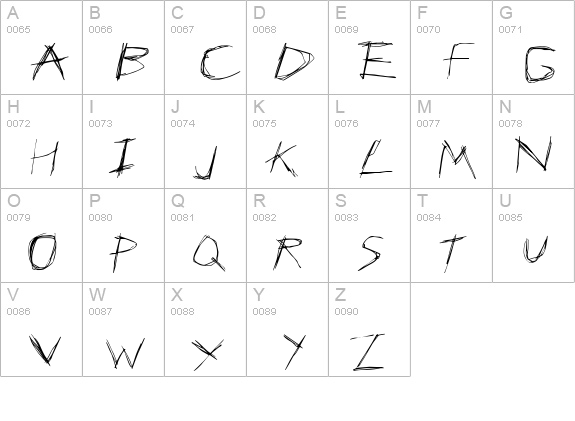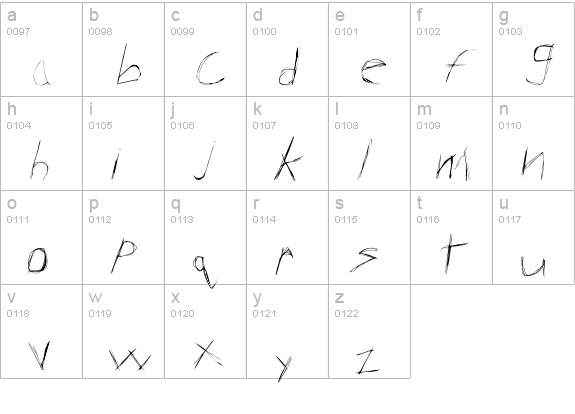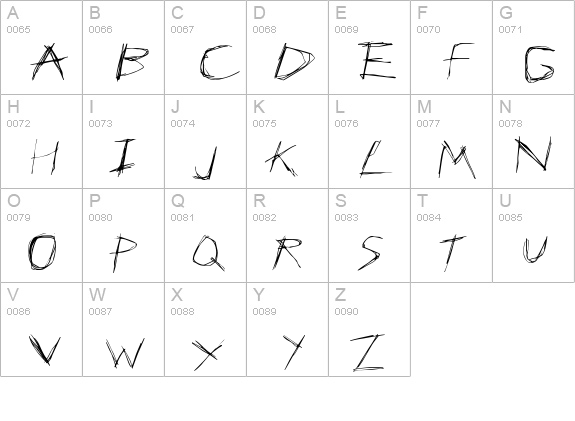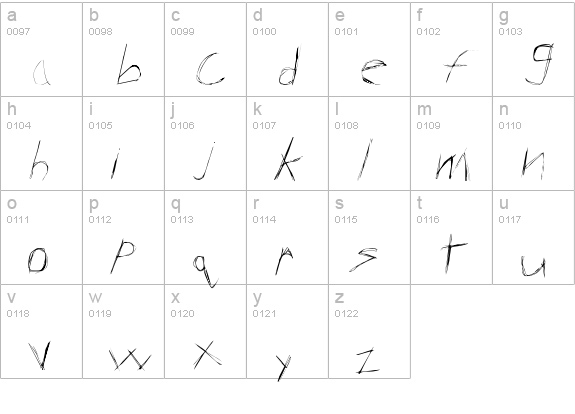
ANaRcHy Font Details
ANaRcHy font is a bold and edgy typeface that exudes a rebellious and unconventional vibe. With its sharp angles and unique letterforms, this font is perfect for making a statement in your designs. The ANaRcHy font is ideal for posters, album covers, and any project that calls for a touch of anarchic style. The best part is, ANaRcHy font is completely free to download at FontsMarket.com. This means you can easily add this eye-catching font to your collection without any cost. Don't miss out on the opportunity to enhance your designs with the daring and dynamic ANaRcHy font today!